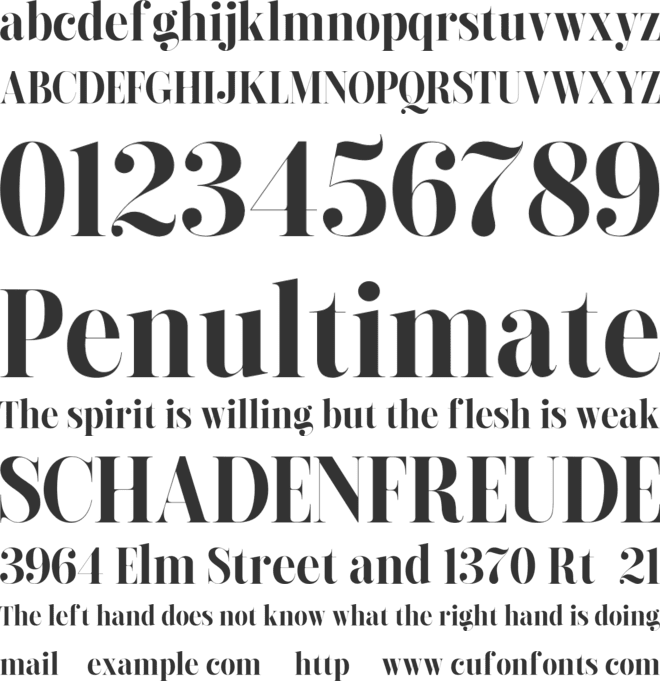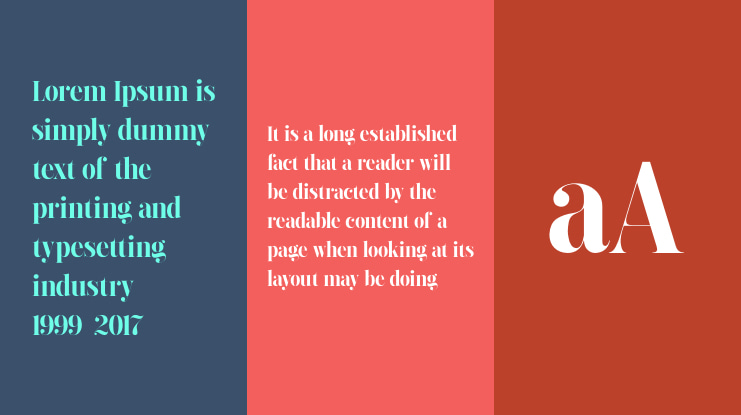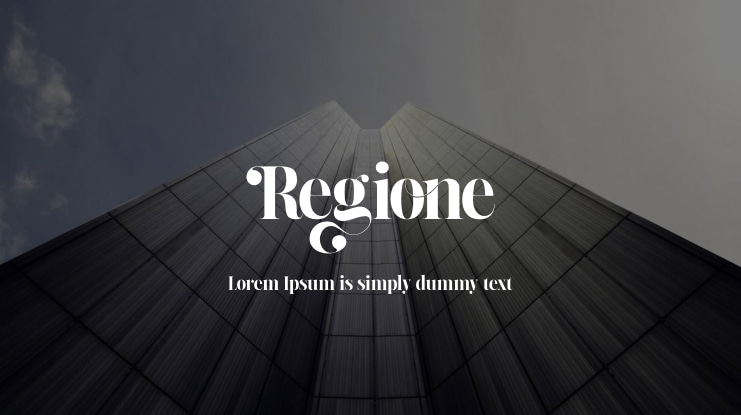
Regione Font
Introducing the Regione Typeface, a contemporary font that embodies timeless elegance and aesthetic appeal. With a variety of stylish alternatives, this typeface accentuates uniqueness. Elevate your creative projects with the extensive collection of standard and discretionary ligatures, allowing you to add a touch of finesse to your text.